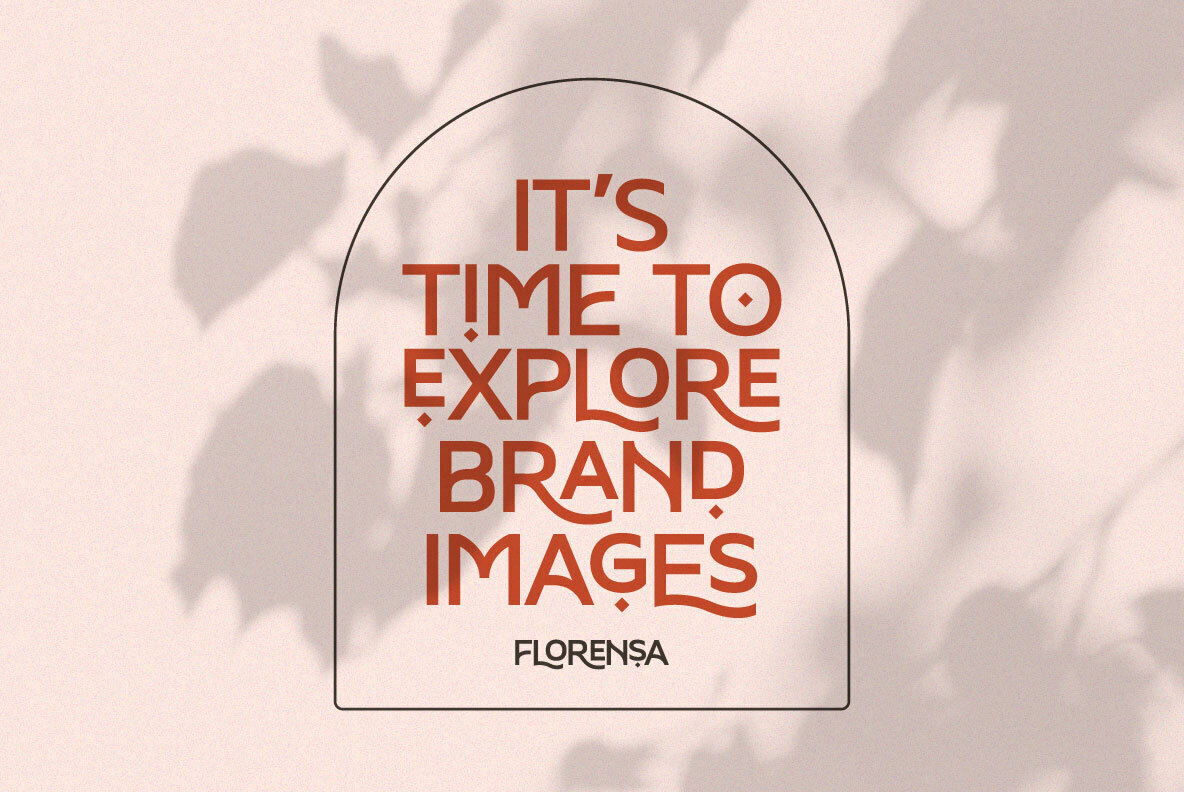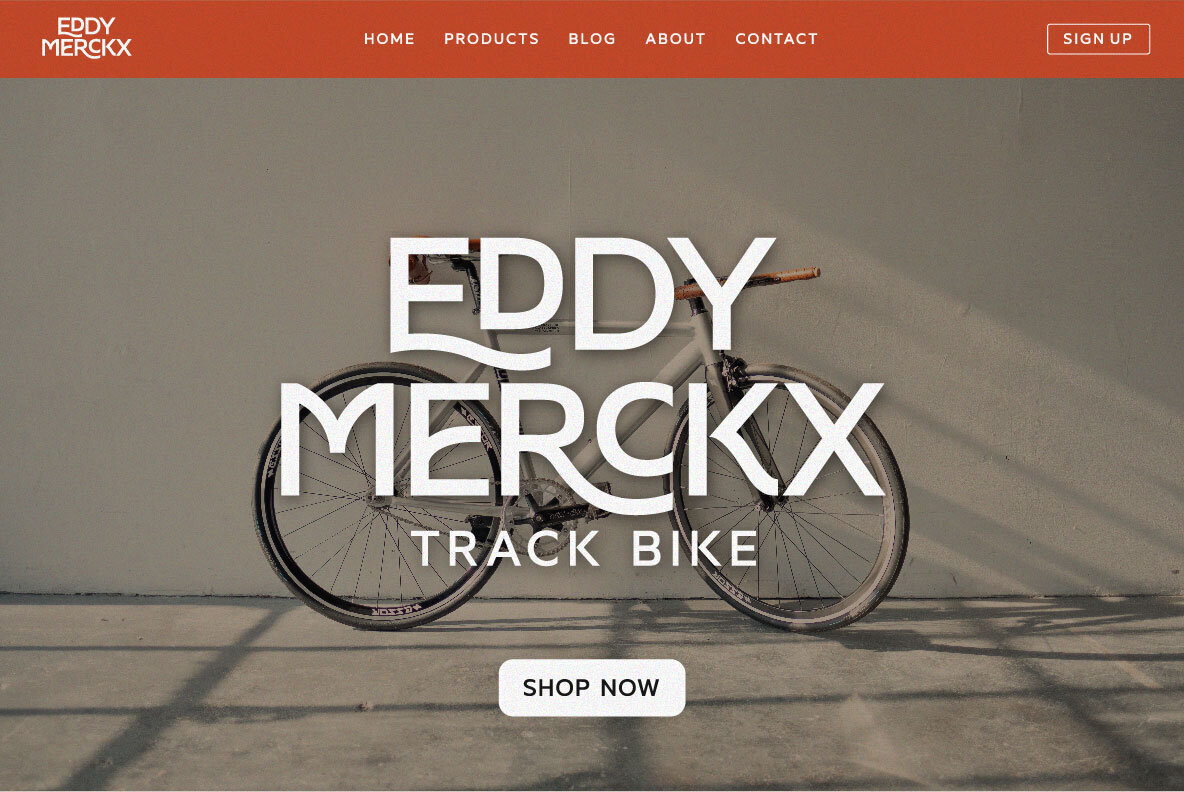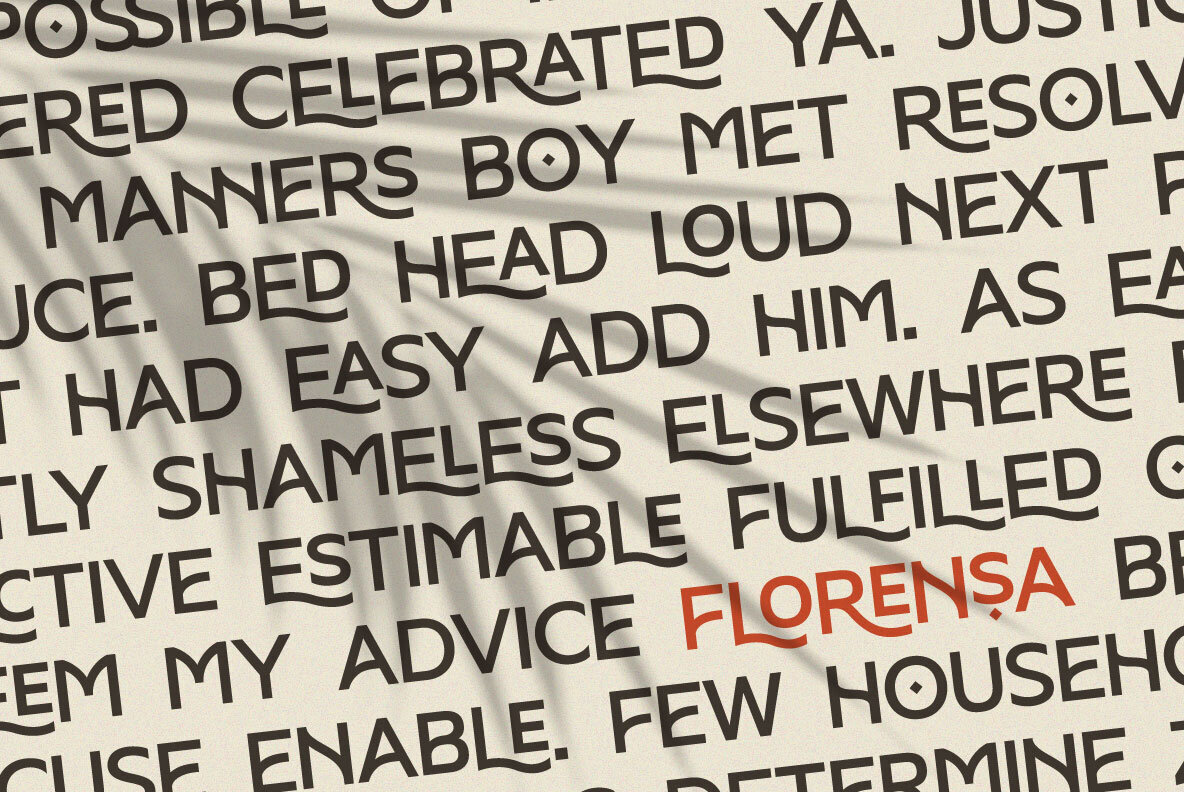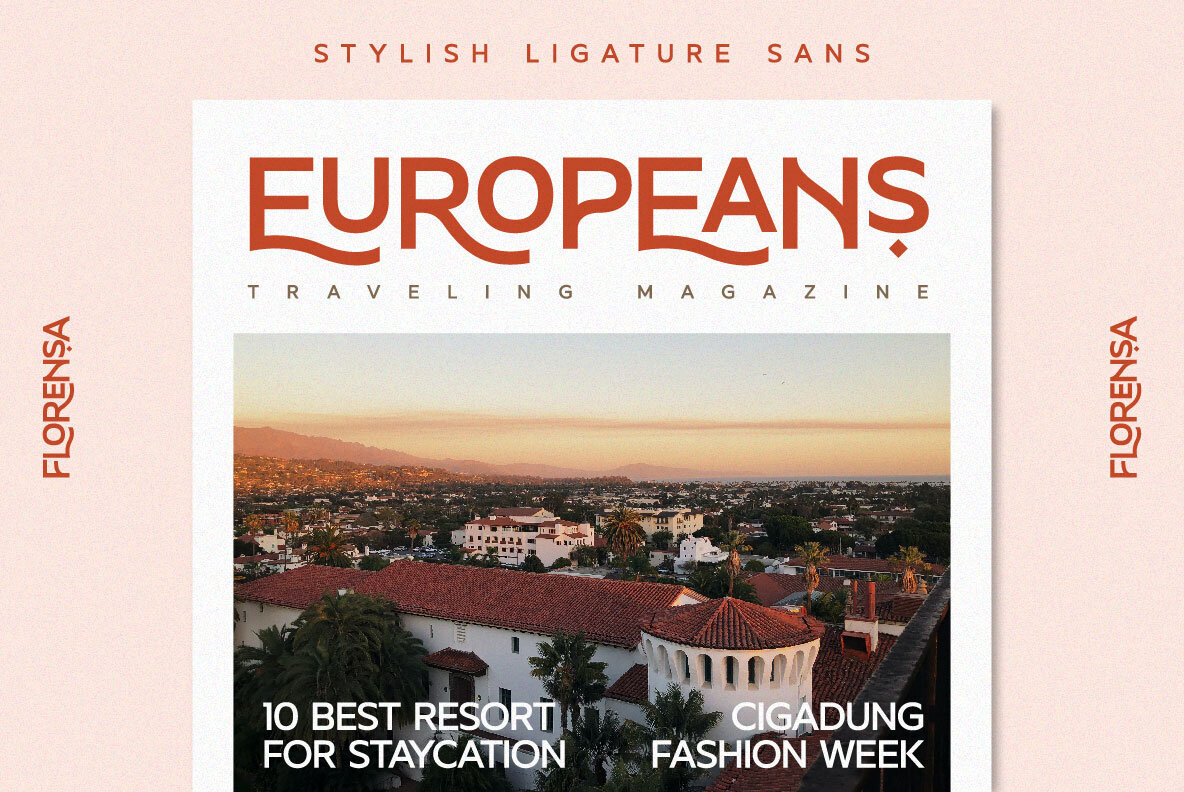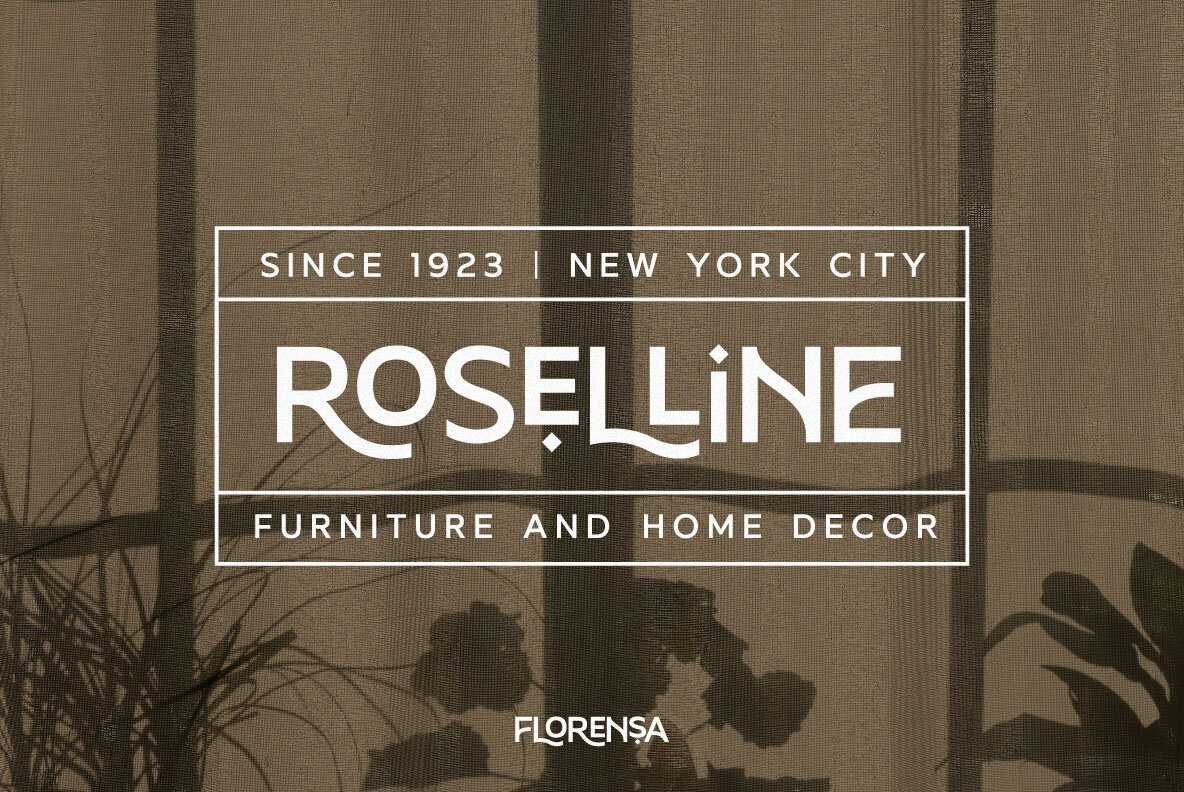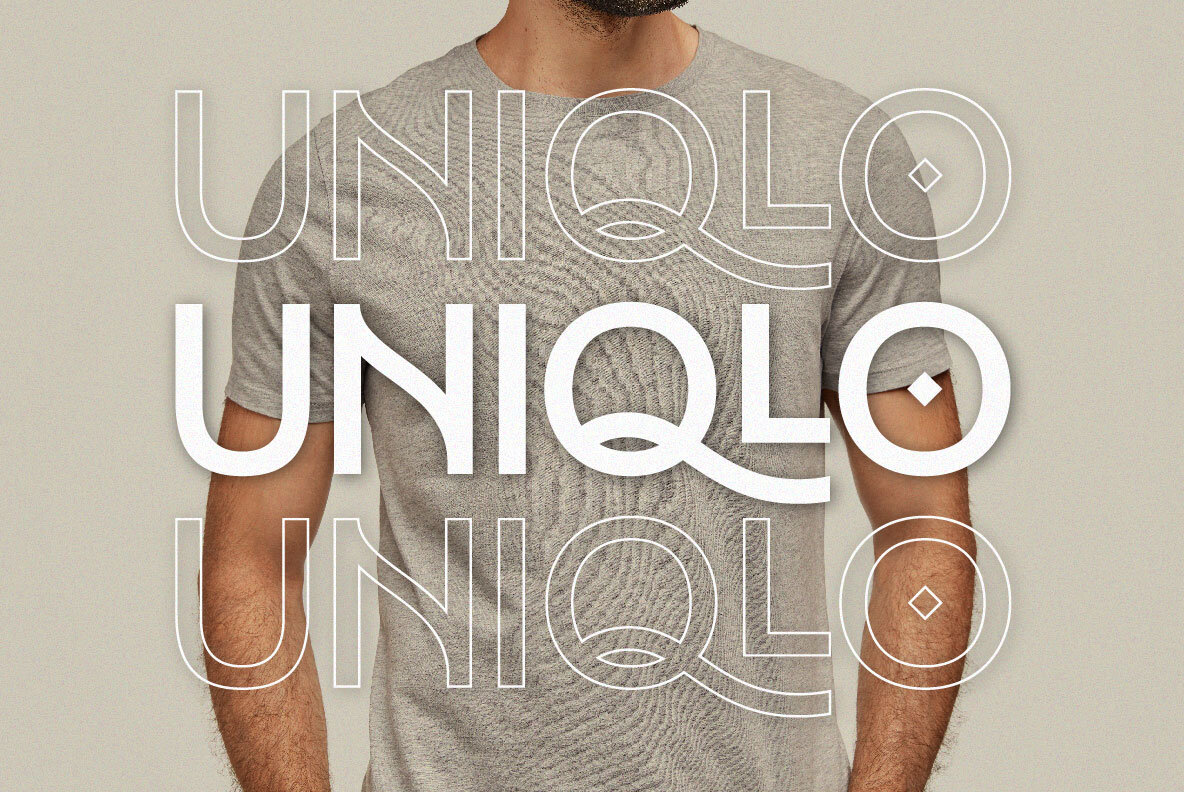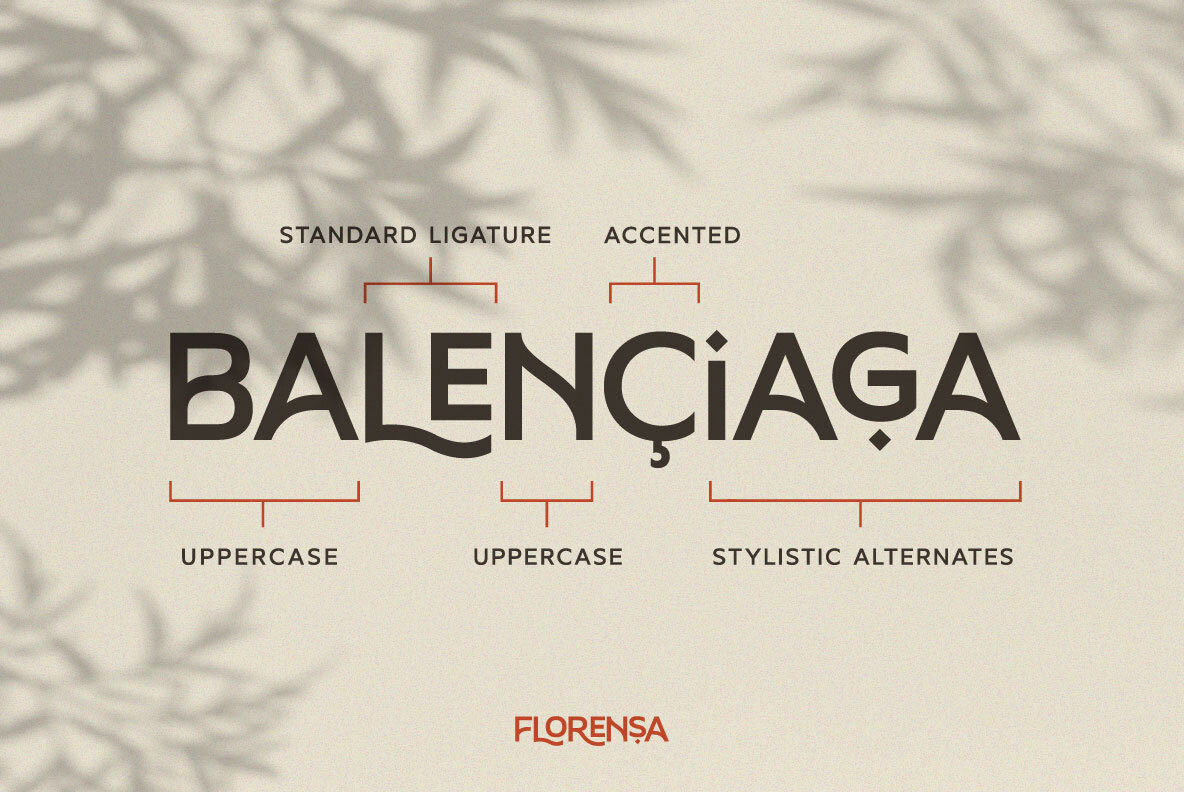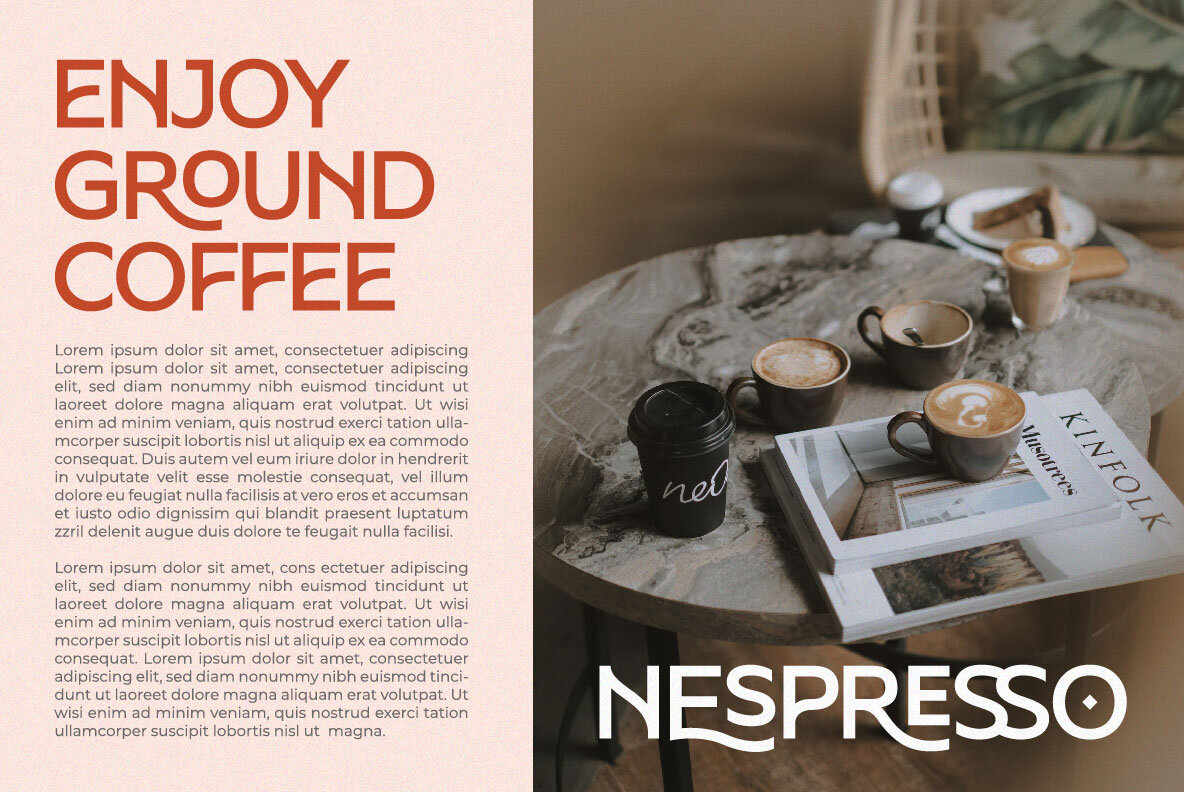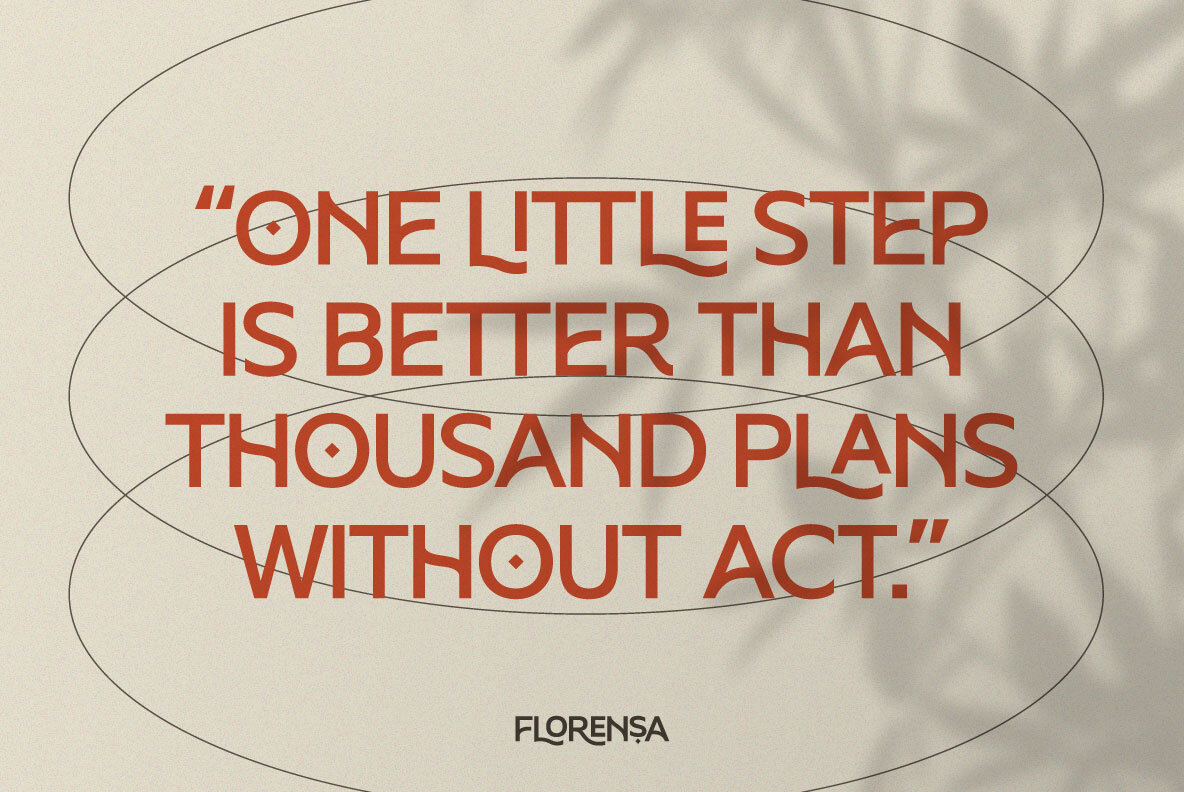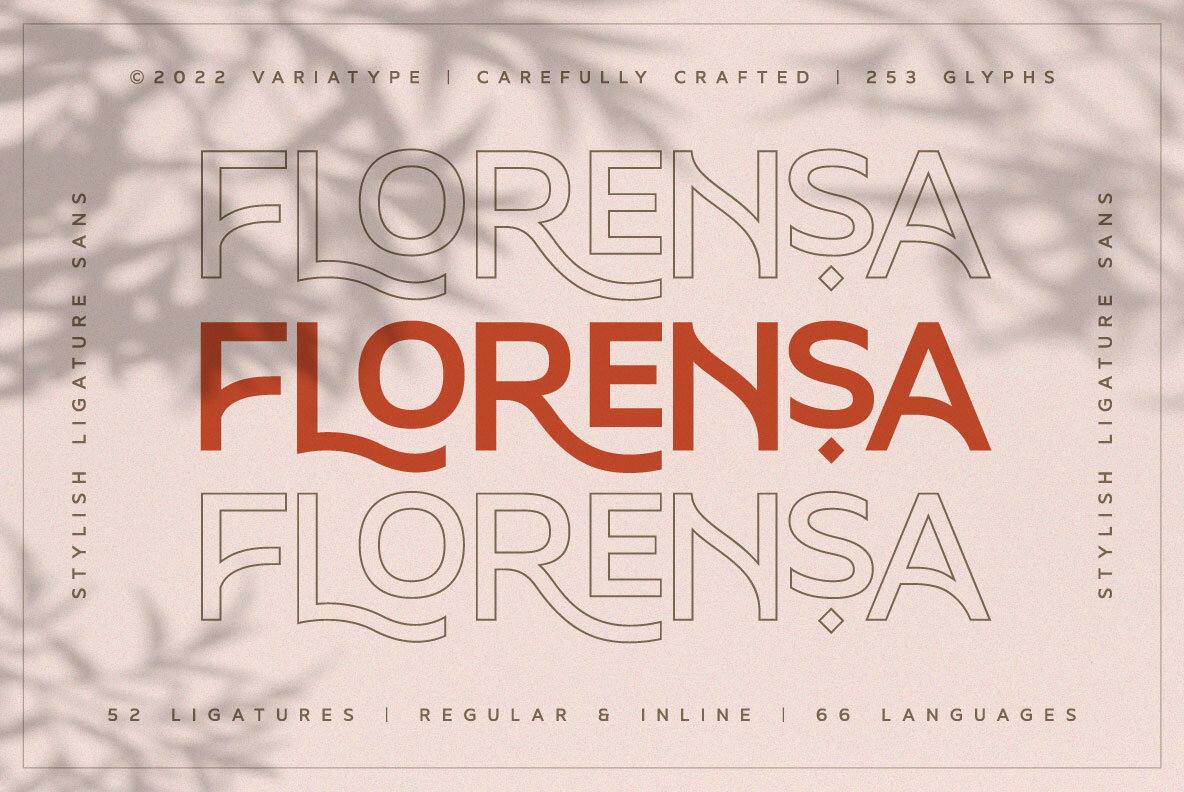
Florensa Font
Florensa Regular
Florensa Inline
Florensa is a typeface that was designed carefully with love and passion. It contains more than 50 beautiful ligatures to produce modern look, playful typography for your design needs!